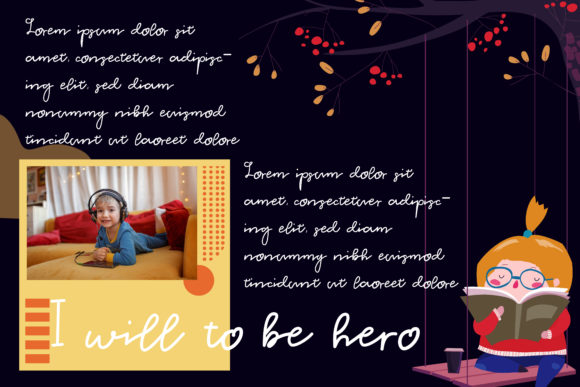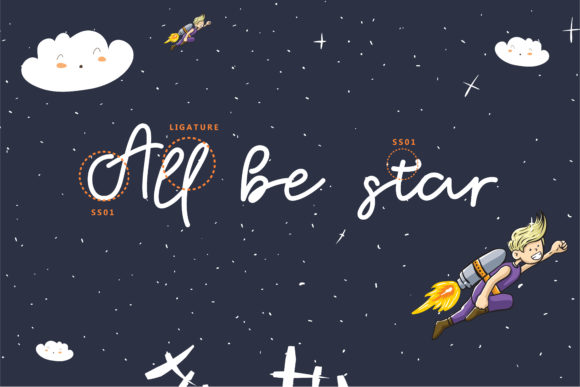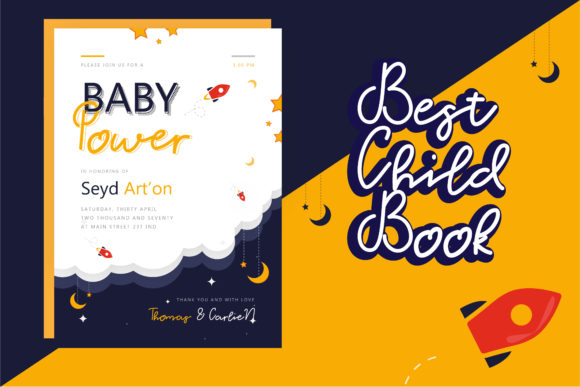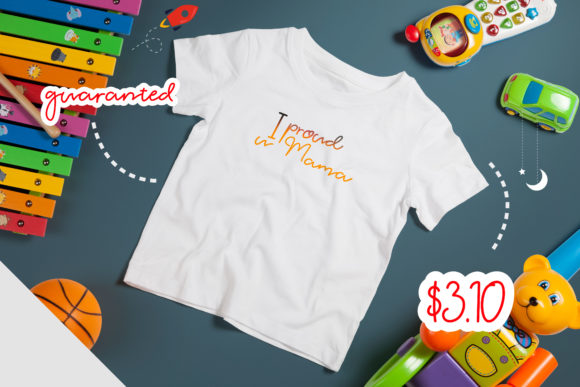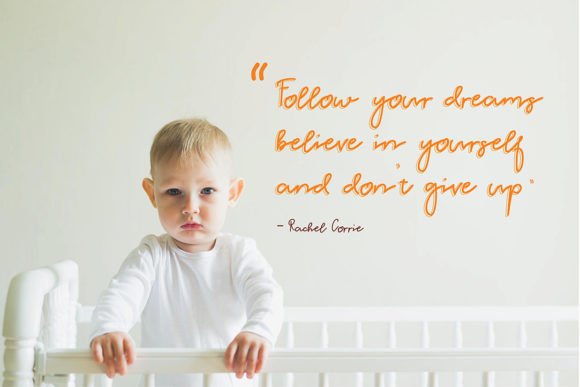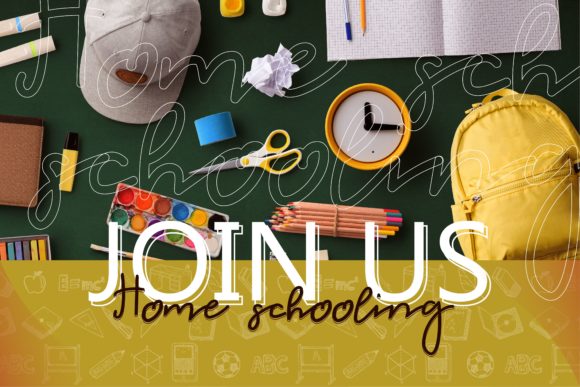
Do you remember the first time you sat down with a blank piece of paper and a box of crayons, waiting for inspiration to strike? The possibilities seemed endless, and the world was full of color and imagination. As designers, we strive to capture that same sense of wonder and creativity in our work.
One font that can help bring a touch of magic to your designs is the Kinder Kids Font. This adorable script font is designed specifically with kids in mind, but its versatility makes it a great addition to any project. From greeting cards to kids’ crafts, Kinder Kids Font is the perfect choice to add a sweet and playful touch.
With its PUA encoding, accessing the font’s many glyphs and swashes is a breeze, making it a valuable tool for designers looking to add a little extra something to their work. Whether you’re working on a children’s book or a birthday card, Kinder Kids Font is sure to delight both kids and adults alike.
Kinder Kids Font Key Features
- Font Family: Kinder Kids is a child-friendly font designed to be visually appealing and engaging for young readers.
- Font Size: Kinder Kids is designed to be highly legible at various font sizes, making it ideal for children’s books, educational materials, and digital content.
- Unique Characteristics: The font features rounded edges, smooth lines, and a playful approach to letterforms, making it an excellent choice for children’s content.
- Resolution: Optimized for high-resolution displays, ensuring crisp and clear typography at resolutions up to 300 DPI.
- Font Styles: Available in Regular, Italic, Bold, and Bold Italic styles to provide flexibility and versatility in design applications.
Kinder Kids Font Review
Overall, Kinder Kids Font has its charm, but it’s a bit of a mixed bag. Let’s start with what works well:
- ✨ The font is playful and fun, perfect for children’s books, educational materials, or any project that requires a lighthearted tone.
- ✨ The font comes in a range of weights and styles, making it easy to customize and adapt to different design needs.
- ✨ The font is highly legible, even at small font sizes, which is essential for any text-heavy project.
- ⚠️ The font may be too playful for more serious or formal projects, and the whimsical feel might not be suitable for all audiences.
- ⚠️ The font’s design can be a bit too simplistic for some tastes, which might make it feel less premium or high-end.
- ⚠️ The font’s character set is not as extensive as some other fonts, which may limit its use in certain languages or contexts.
Overall, Kinder Kids Font is a solid choice for projects that require a playful, kid-friendly feel. While it may not be the best fit for all designs, it’s a great option for those looking for a fun and approachable font.
Kinder Kids Font Practical Application Guide
Tips for Getting the Most Out of Kinder Kids Font
Use Kinder Kids Font for children’s book illustrations, nursery decor, and other designs that require a playful and childlike feel.
Pair Kinder Kids Font with bright colors and whimsical graphics to create a cohesive and engaging design.
Experiment with different font sizes and combinations to create visual interest and hierarchy in your design.
Alternatives to Kinder Kids Font for Designers
The Great Vibes Font is a modern, cursive script font that is perfect for creating a fun and playful atmosphere. It’s ideal for branding, advertising, and packaging design. Unlike Kinder Kids Font, Great Vibes Font has a more mature and sophisticated look, making it suitable for a wide range of audiences.
Comparison: Kinder Kids Font is more childish and whimsical, while Great Vibes Font is more elegant and refined.
The Pacifico Font is a beautiful, handwritten font that exudes a sense of relaxation and tranquility. It’s perfect for designing travel, food, and wellness-related brands. Compared to Kinder Kids Font, Pacifico Font has a more laid-back and casual feel, making it ideal for designs that require a sense of calmness.
Can I customize the Kinder Kids Font for my specific project needs?
Yes, the Kinder Kids Font is a highly customizable font that can be tailored to meet your specific project requirements. You can modify the font’s color, size, and style to suit your design needs. Additionally, the font’s OpenType features allow for advanced typography options, such as ligatures, swashes, and contextual alternates.